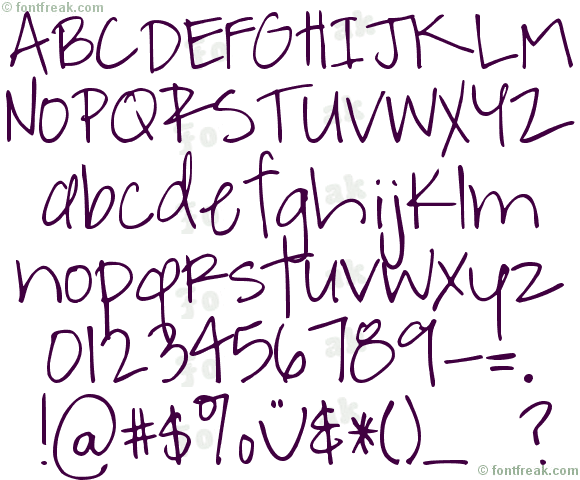
DJB A Bit of Flaire, created by Darcy Baldwin, is a charming handwritten typeface that brings a personal touch to any design project. This font embodies a playful yet elegant style, making it perfect for a variety of creative applications. With its medium stroke weight and gentle contrast, the letters flow seamlessly, exuding a warm and inviting feel. The spacing is well-balanced, allowing for easy readability while maintaining a casual flair. Decorative elements, such as whimsical loops and curls, enhance the overall character of the typeface, making it visually appealing.
This versatile font is ideal for a range of use cases, including wedding invitations that require a touch of romance, eye-catching movie posters that seek to convey a sense of excitement, and restaurant menus that demand an inviting atmosphere. Additionally, DJB A Bit of Flaire works beautifully for greeting cards and social media graphics, adding a personal and heartfelt element to any communication. Its engaging style captures attention and enhances the overall aesthetic of any project.
What sets DJB A Bit of Flaire apart is its unique ability to blend professionalism with a touch of whimsy. Whether you're crafting a heartfelt invitation or designing an engaging promotional piece, this font offers a delightful option that stands out in a crowded market. Don't miss the opportunity to explore the DJB A Bit of Flaire font free download and incorporate its distinctive style into your next project.